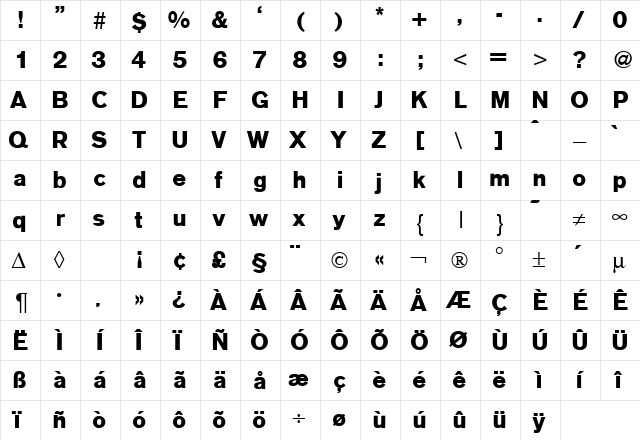
AkzentOldface Bold Font Preview
AkzentOldface Bold
Design Context for AkzentOldface Typeface
AkzentOldface is a composed and adaptable typeface that performs quietly and consistently across a wide range of design contexts. Its bold stroke weight gives it real presence on the page.